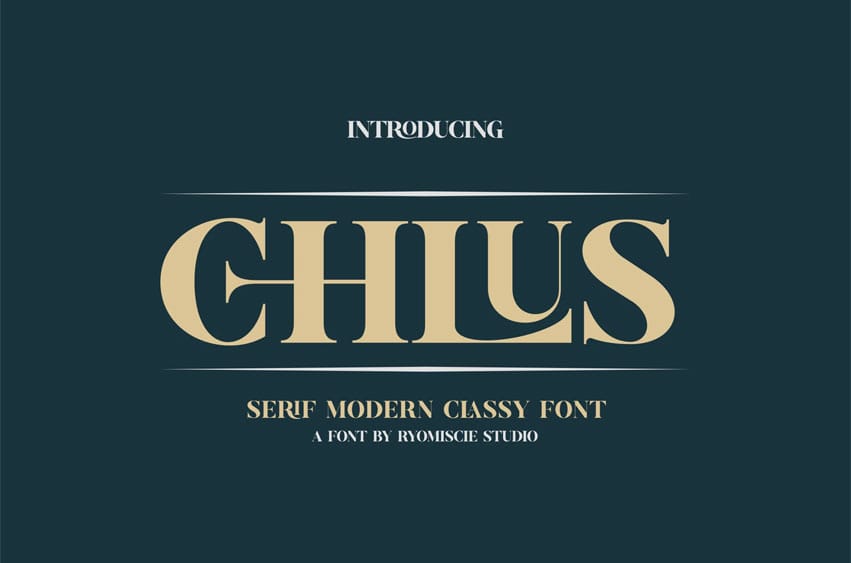
Chlus Font Serif Modern Classy Font is a bold and authentic display font.
The font is suitable for any branding project like logo, esport, and many more. outstanding in a wide range of contexts.